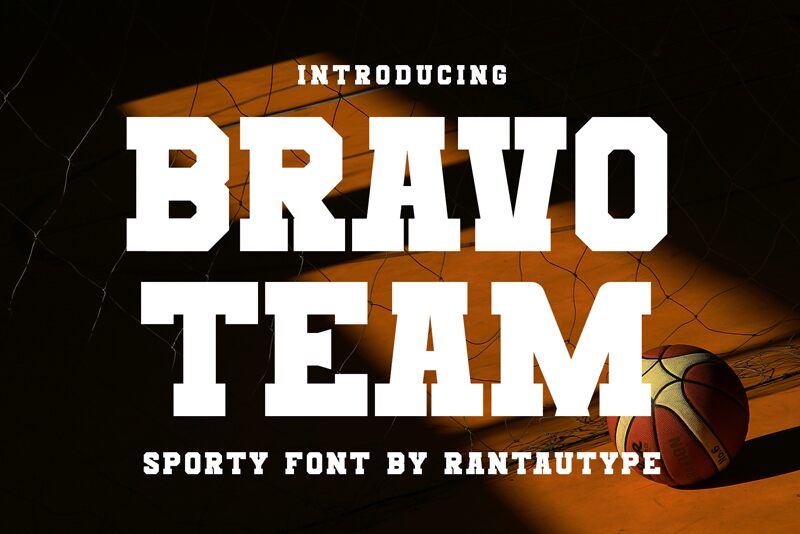
Bravo Team
Bravo Team font by RantautypeStudio is a free old-school slab serif typeface with the punch of a stadium headline. Thick, blocky letters, tight spacing, and squared-off corners give it that gritty varsity feel—like lettering stamped on jerseys, gym doors, and vintage boxing posters. It reads loud and clear, even from a distance, so your message hits with the same force as the name suggests.
Using Bravo Team, you can brand sports teams, design event posters, create bold logos, stamp merch, build game titles, or shout on social media graphics. This free font thrives in all-caps at large sizes where its chunky shapes feel almost carved out of ink. Pair Bravo Team with a clean, neutral sans serif for body copy to keep the focus on its muscular, old-school character.